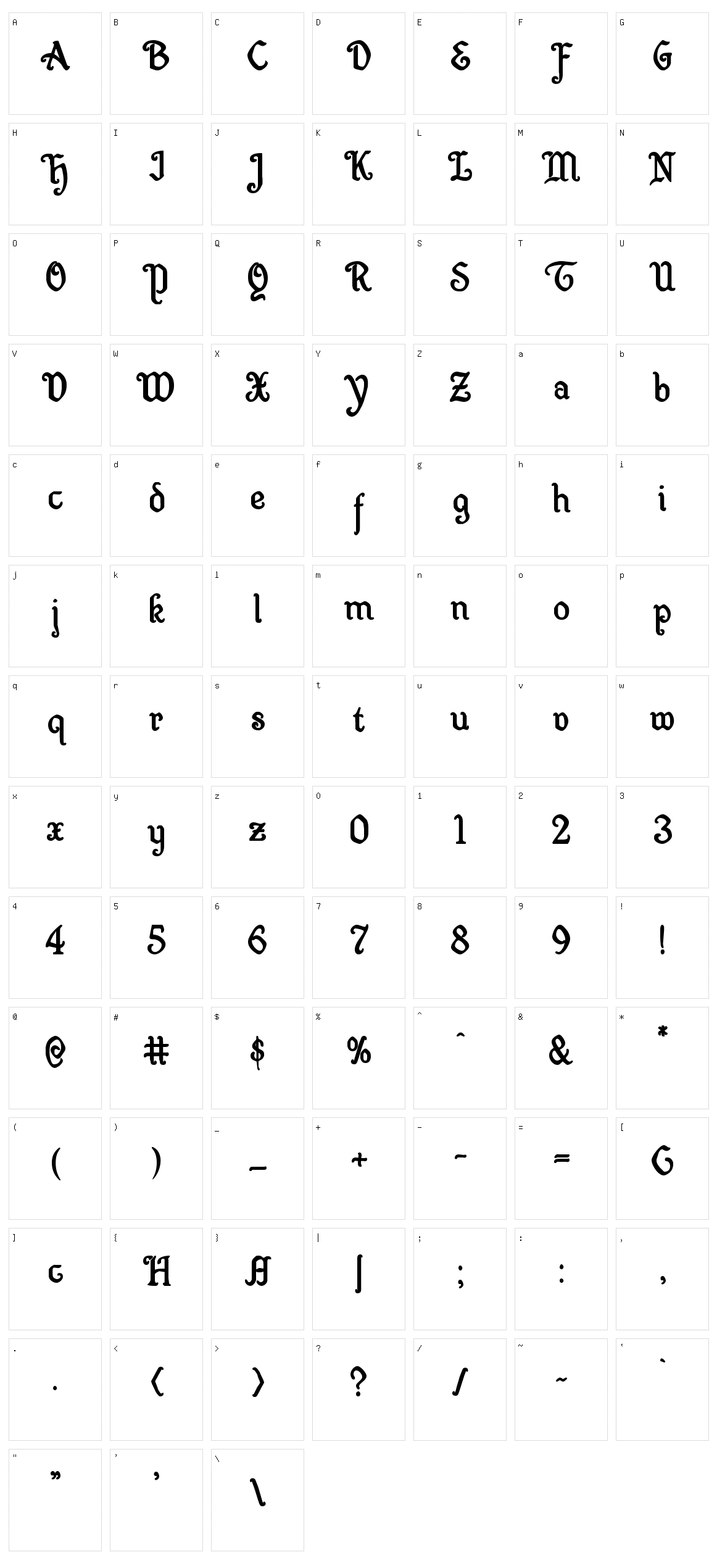
Quill Sword
Description: The free font Quill Sword is carefully designed by Iconian Fonts, showcasing a thoughtful balance of creativity and usability and belongs to the Gothic font family. When you download the ZIP file, it contains only 998.44 KB of font files, making it lightweight and quick to download. Please review the license details below to understand permitted usage and distribution rights. If license information is not available, we recommend using this font for personal projects only or contacting the author directly for commercial usage permissions.
This font comes with the following 18 versions: Regular, Italic, Condensed, Condensed Italic, Expanded, Expanded Italic, Outline, Outline Italic, Bold, Bold Italic, Light, Light Italic, Rotated, Rotated 2, Rotalic, Semi-Italic, Super-Italic and Leftalic.